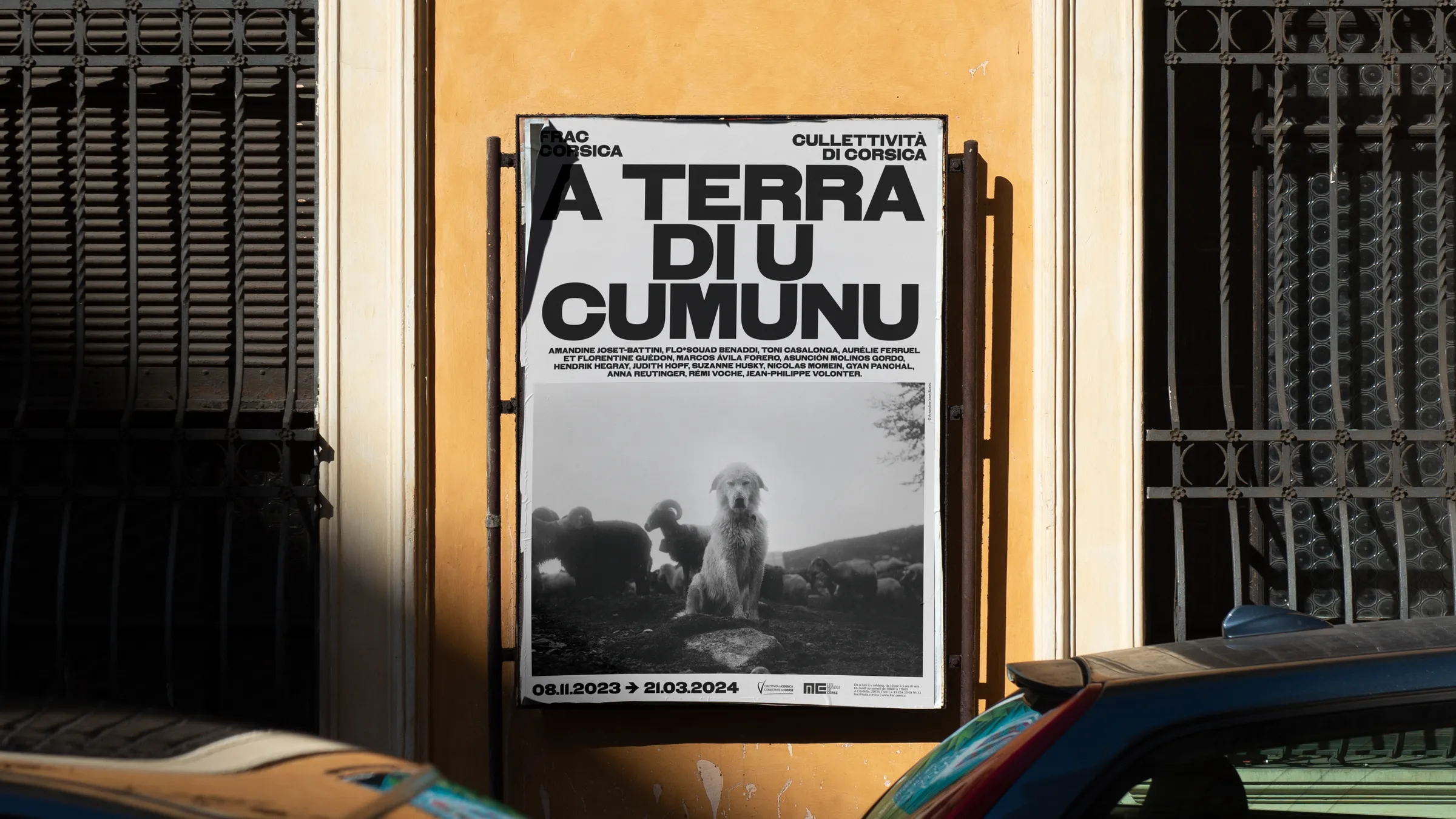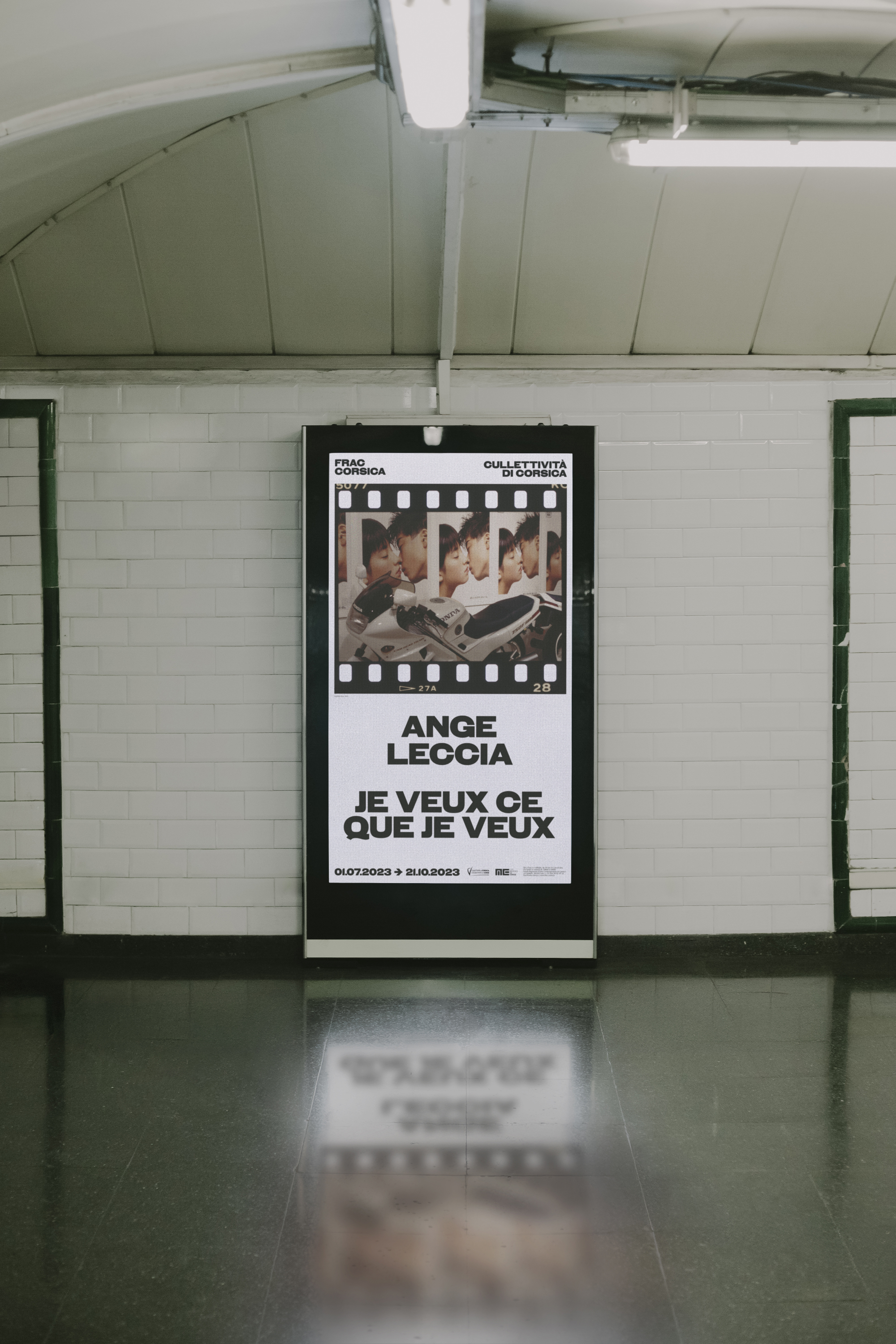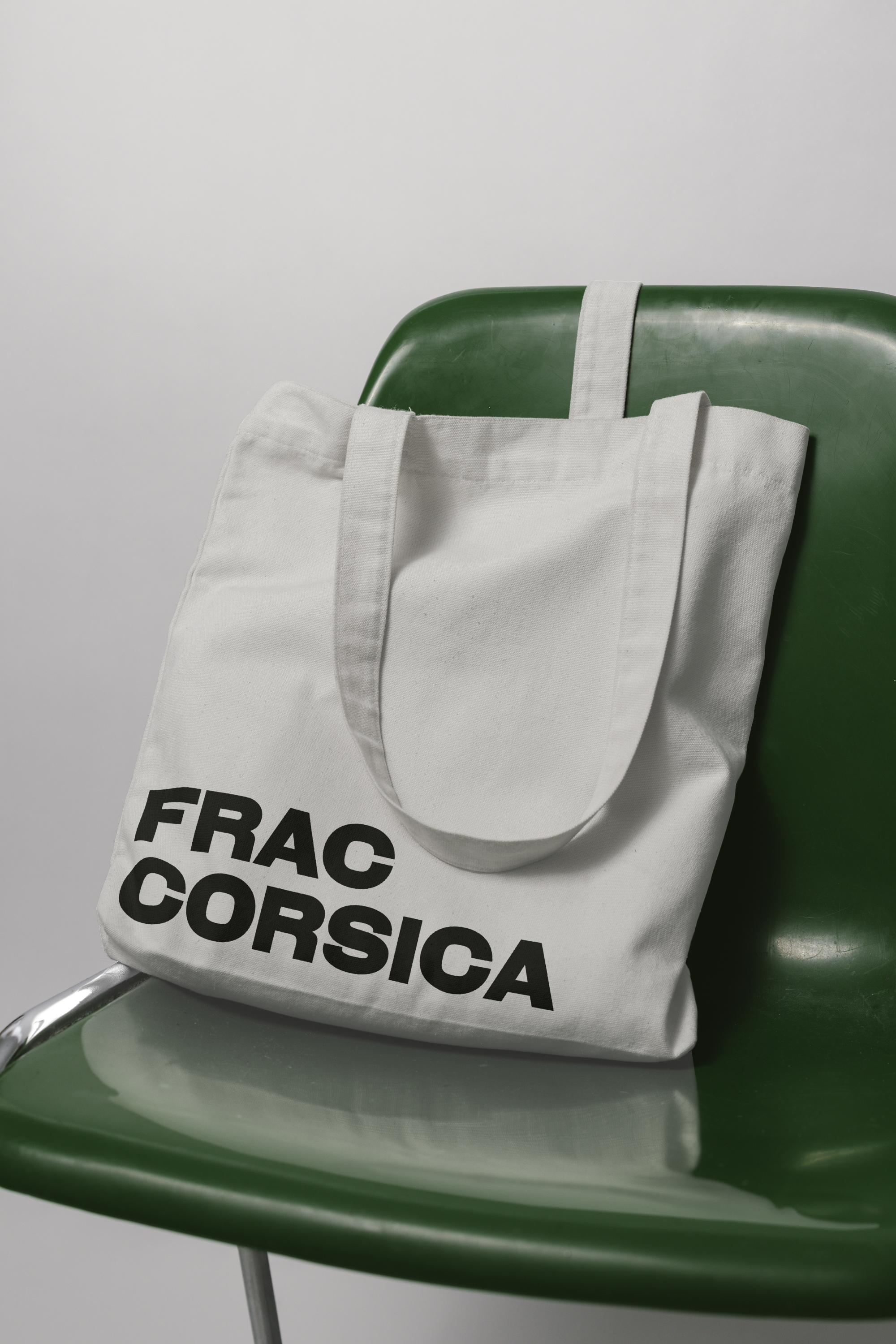
FRAC Corsica, the Regional Fund for Contemporary Art in Corsica, is dedicated to promoting and supporting contemporary artistic creation. For this institution, we designed a custom display typeface with Anna Toussaint, the art director in charge of FRAC Corsica’s visual identity project, and in collaboration with the FRAC team led by director Fabien Danesi. The typeface, with its bold forms and tight proportions, reflects the island’s distinct character, both powerful and expressive, while preserving a refined sense of identity. This visual tension subtly echoes the raw beauty and resilient spirit often associated with Corsica. The typeface is used across the visual identity, including the logo, headlines, posters, and signage, giving the institution a cohesive and unmistakable presence. The project also extends to the new website, designed by Anna Toussaint and Frederik Mahler-Andersen. More to explore at frac.corsica.